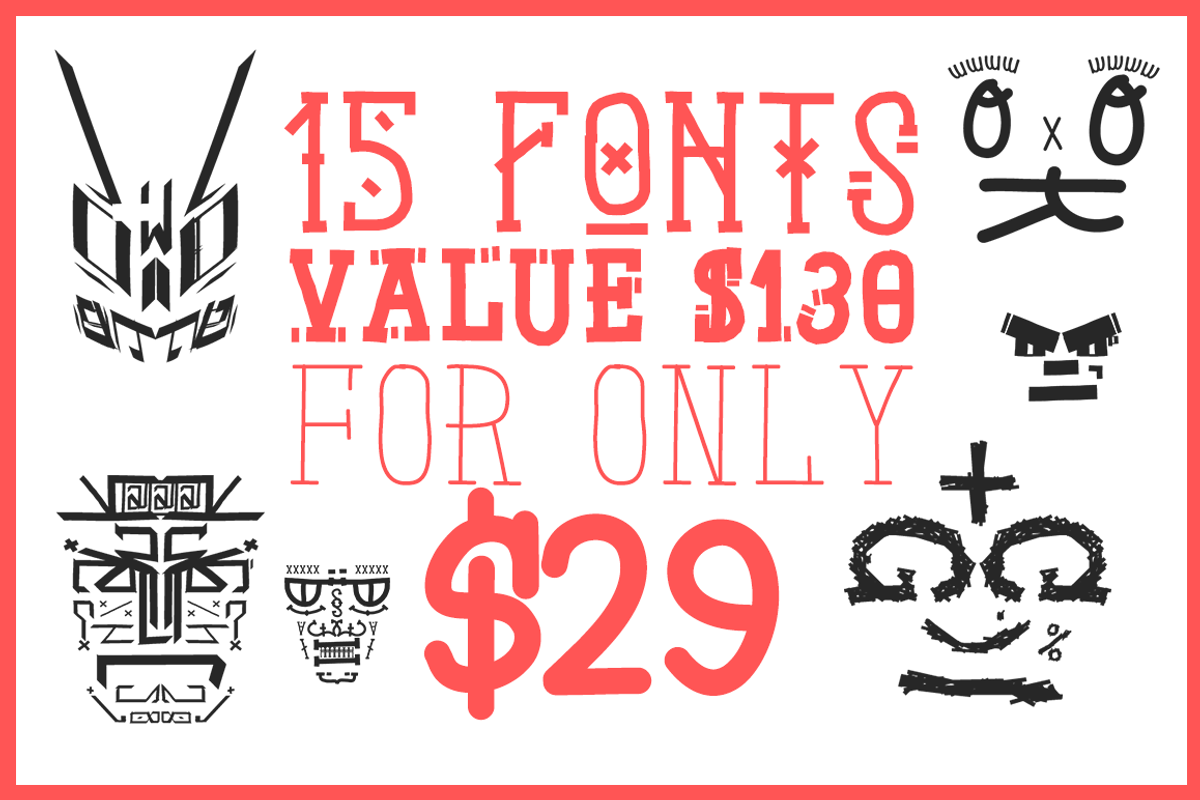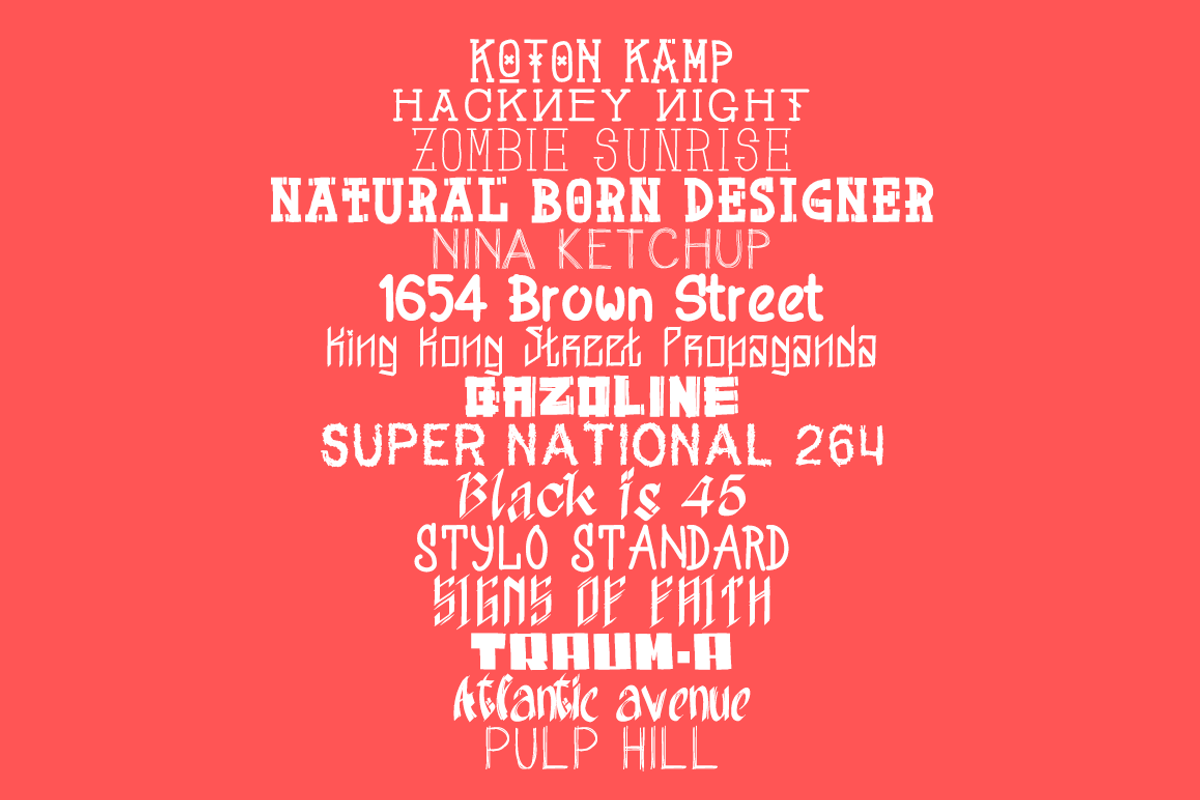
Face to Face Handdrawn Font bundle
Face to Face Handdrawn Font bundle by David is Creative is a font selected for branding, posters, packaging, typography.
Why Face to Face Handdrawn Font bundle is worth a look
Face to Face Handdrawn Font bundle by David is Creative fits naturally into Branding, posters, packaging, typography.